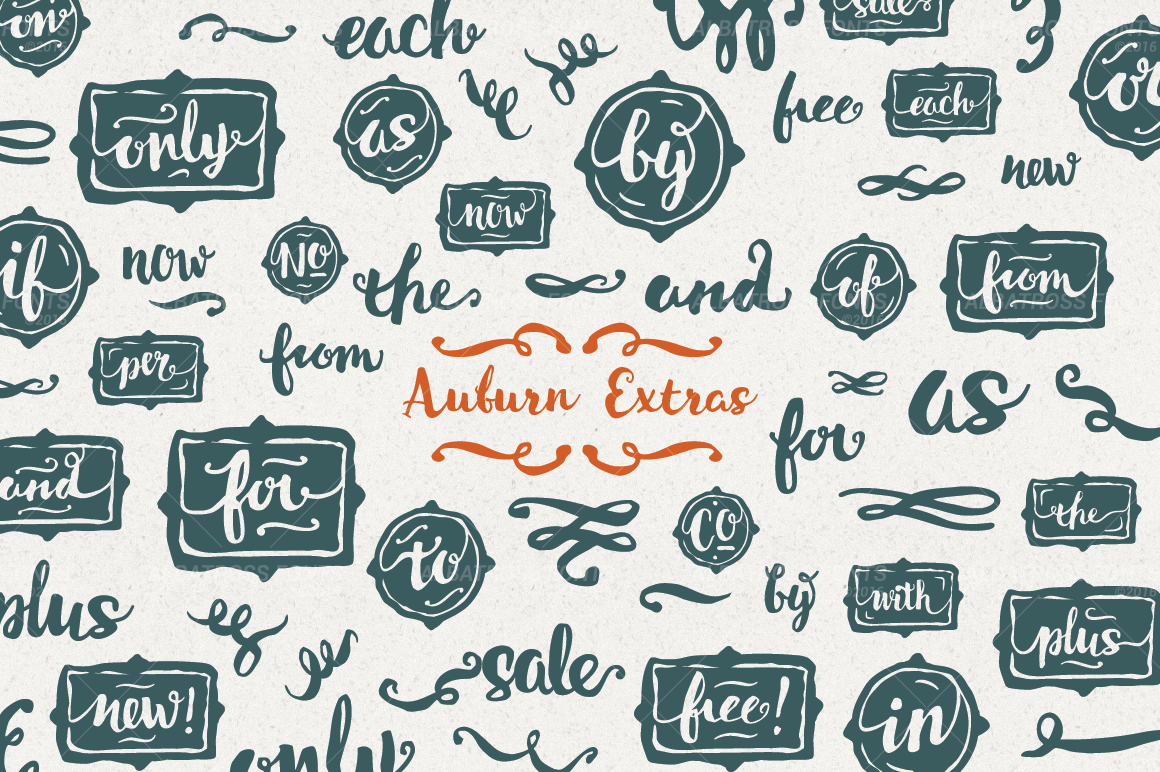
Auburn Extras Font + Vector
Auburn Extras is a symbol font with 50 highly stylized catchwords perfect for restaurant menus, wedding invitations and much more. Also included in the font are over 25 swashes and flourishes for adding that extra ornamental touch to your designs.
CATCHWORDS: (all catchwords come in fancy, as well as borderless.)
at, of, on, if, to, in, by, or, as, and, the, for, was, new!, now, per, only, free!, from, with, sale, plus, each, No (number), Co (company).